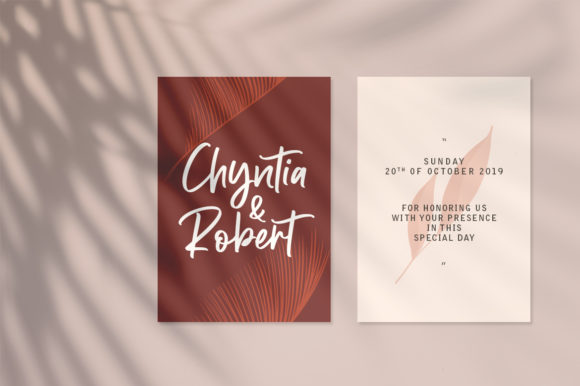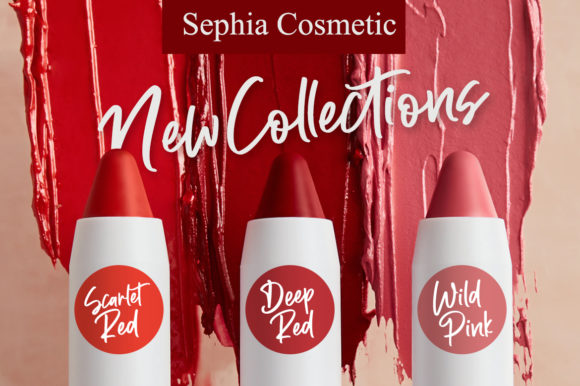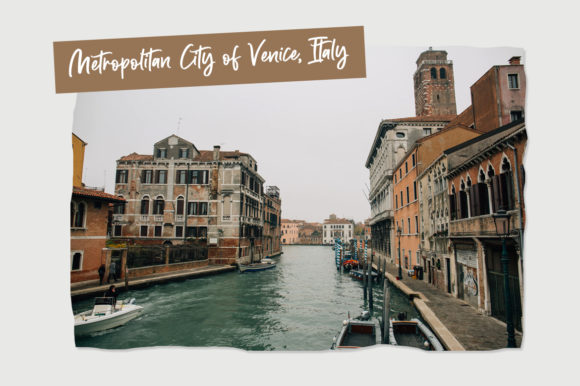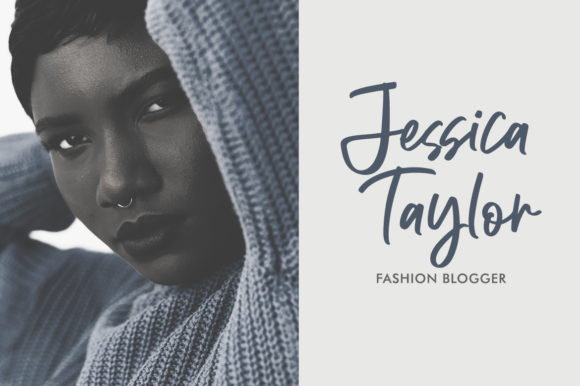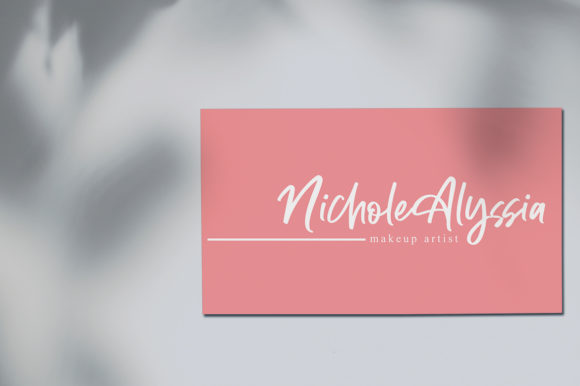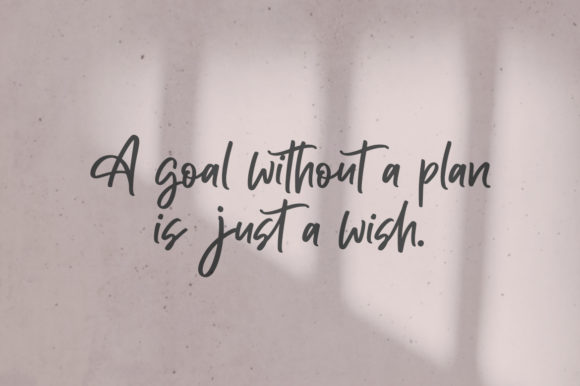
Caylee Script Font: The Sweet and Charming Choice for Your Design Projects
Are you looking for a font that can add a touch of elegance and sophistication to your design projects? Look no further than the Caylee Script Font. This beautiful, handwritten font is perfect for designers and crafters who want to create stunning visuals that stand out from the crowd. With its contemporary charm and sweet, charming aesthetic, Caylee is sure to become your go-to font for a wide range of design applications.
What Makes Caylee Script Font So Special?
Caylee Script Font is a unique and versatile font that is designed to bring a touch of personality to your designs. Its sweet, charming, and cool handwritten style makes it perfect for a wide range of projects, from wedding invitations and party decorations to branding and advertising materials. Whether you’re a professional designer or a crafty DIY enthusiast, Caylee is sure to inspire your creativity and help you create beautiful, eye-catching designs.
Key Features of Caylee Script Font
- Handwritten style: Caylee Script Font features a beautiful, handwritten style that is both elegant and approachable.
- Contemporary charm: With its modern aesthetic and sweet, charming vibe, Caylee is perfect for designers who want to create fresh and stylish designs.
- Versatility: Caylee is a versatile font that can be used for a wide range of design applications, from print materials to digital projects.
- Easy to read: Despite its elegant, cursive style, Caylee is easy to read and understand, making it perfect for body text and headlines.
How to Use Caylee Script Font in Your Design Projects
Caylee Script Font is easy to use and can be incorporated into a wide range of design projects. Here are a few ideas to get you started:
- Wedding invitations and party decorations: Caylee’s sweet, charming aesthetic makes it perfect for wedding invitations, party decorations, and other celebration-themed designs.
- Branding and advertising: Use Caylee to create eye-catching branding and advertising materials, such as logos, brochures, and social media graphics.
- Digital projects: Caylee is perfect for digital projects, such as website headers, email newsletters, and social media posts.
- Crafting and DIY projects: Caylee is also great for crafty DIY enthusiasts who want to add a personal touch to their projects, such as handmade cards, scrapbook pages, and journal entries.
Tips for Getting the Most Out of Caylee Script Font
To get the most out of Caylee Script Font, here are a few tips to keep in mind:
- Use it sparingly: While Caylee is a beautiful font, it can be overwhelming if used too much. Use it sparingly to add a touch of elegance and sophistication to your designs.
- Pair it with other fonts: Caylee pairs well with a wide range of fonts, from serif and sans serif fonts to other script fonts. Experiment with different font combinations to find the perfect look for your design.
- Experiment with colors and textures: Caylee looks great in a wide range of colors and textures. Experiment with different colors and textures to add depth and interest to your designs.
Caylee Script Font is a beautiful, versatile font that is perfect for designers and crafters who want to add a touch of elegance and sophistication to their design projects. With its sweet, charming aesthetic and contemporary charm, Caylee is sure to become your go-to font for a wide range of design applications. So why wait? Fall in love with Caylee today and start creating stunning designs that stand out from the crowd!